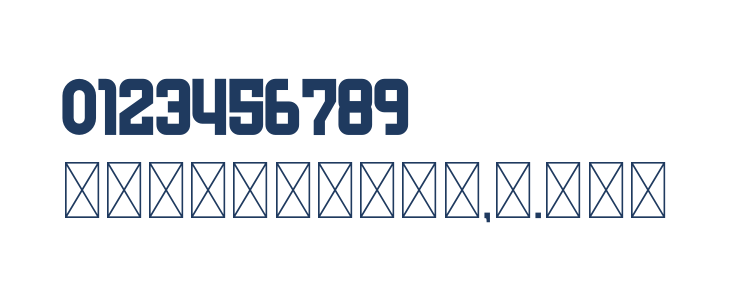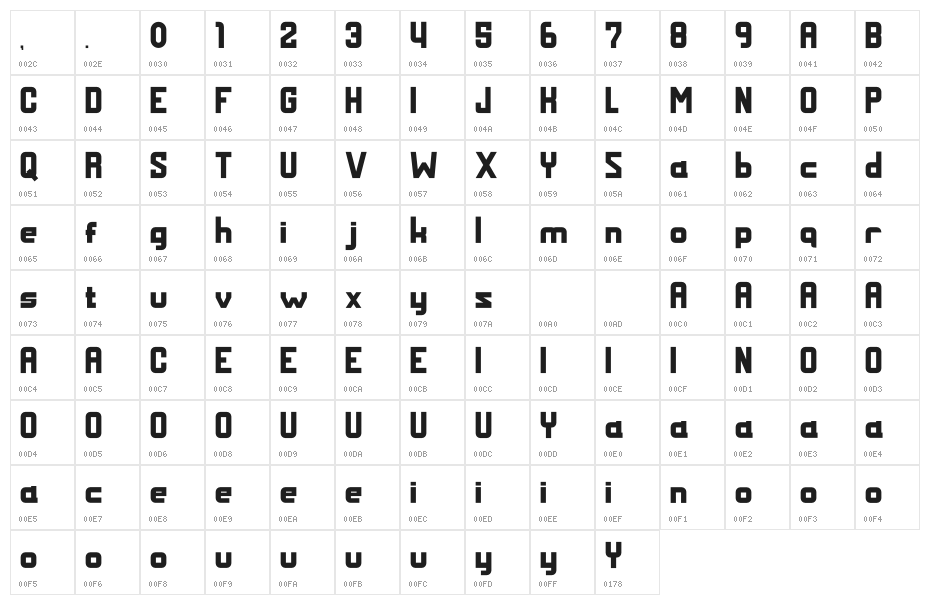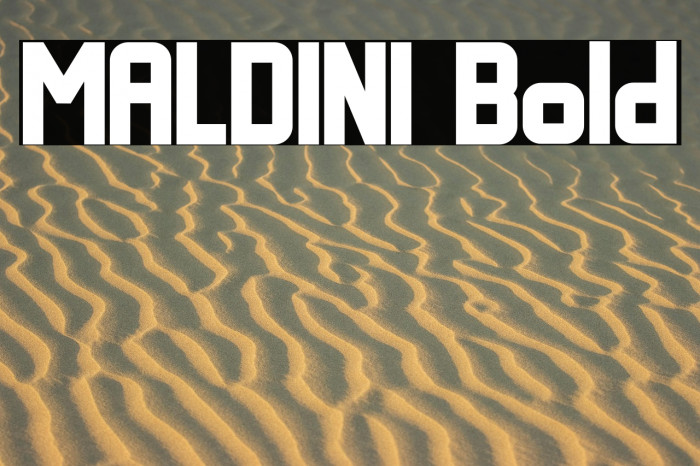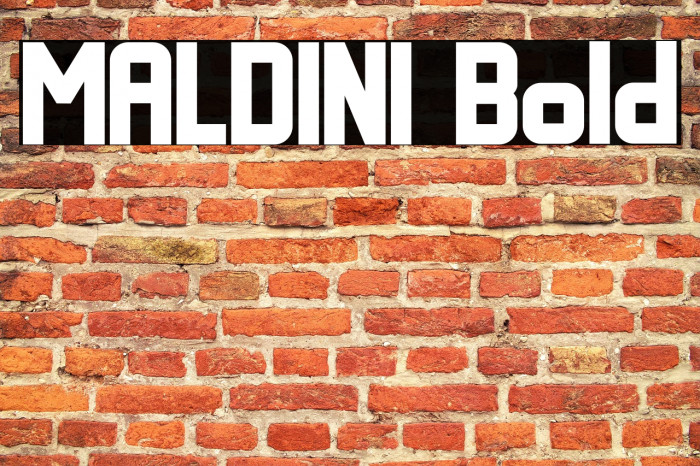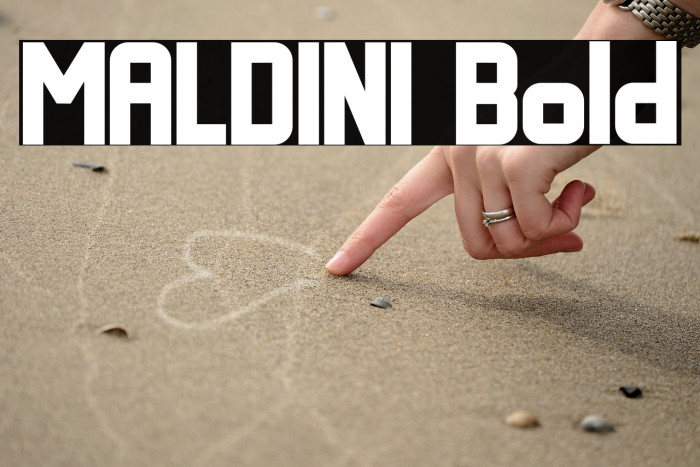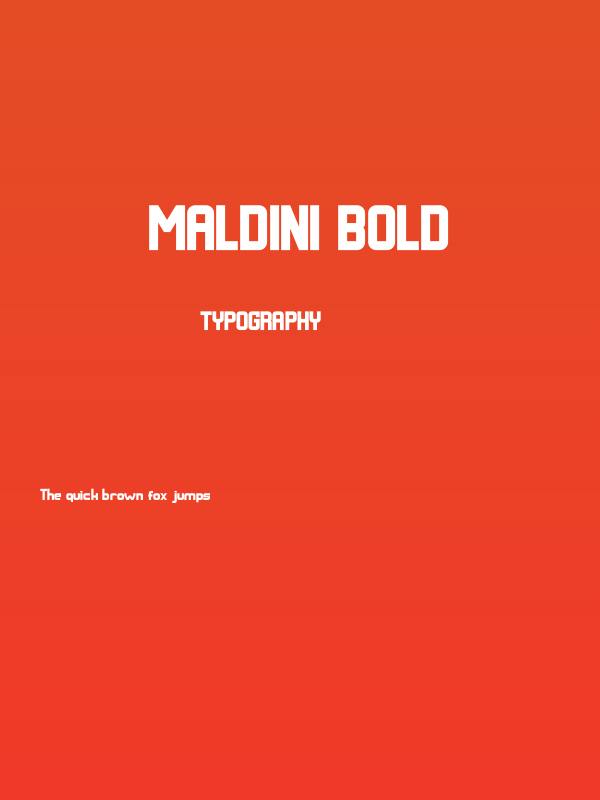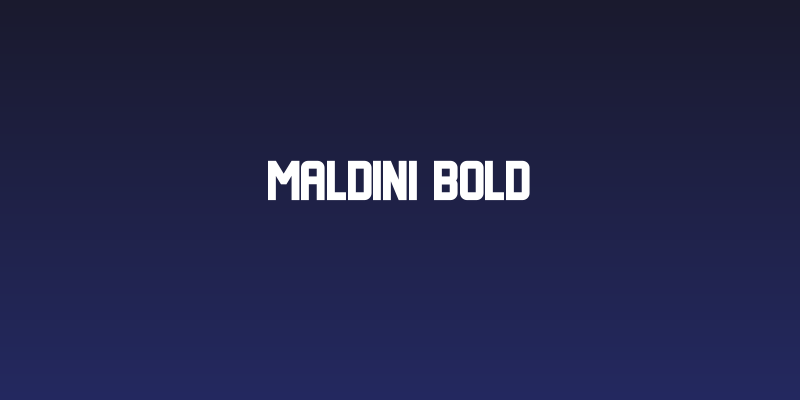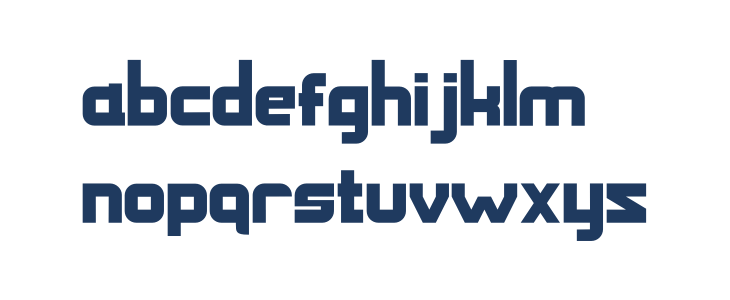
MALDINI Bold Font
MALDINI Bold Description
This font features a bold and geometric design, characterized by its strong, block-like appearance. The uppercase letters are uniform in height, with sharp angles and straight lines that give it a modern, industrial feel. The lowercase letters maintain the geometric style, with some characters having unique, angular cuts that add a distinctive touch. The numerals are consistent with the overall boldness, ensuring readability and impact. The special characters are designed to match the font's robust aesthetic, making it suitable for attention-grabbing applications.